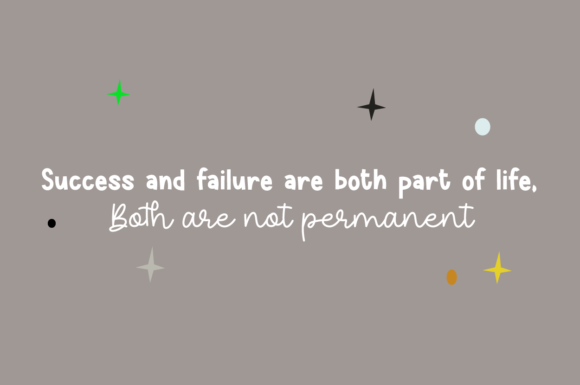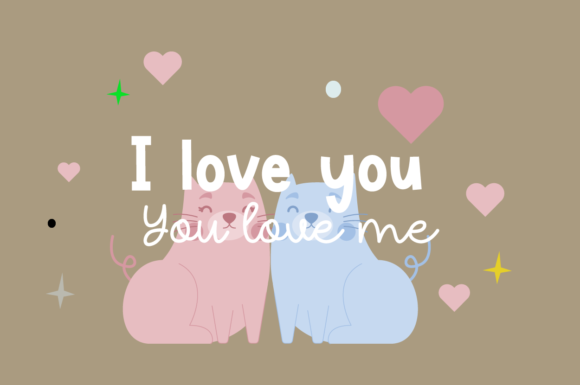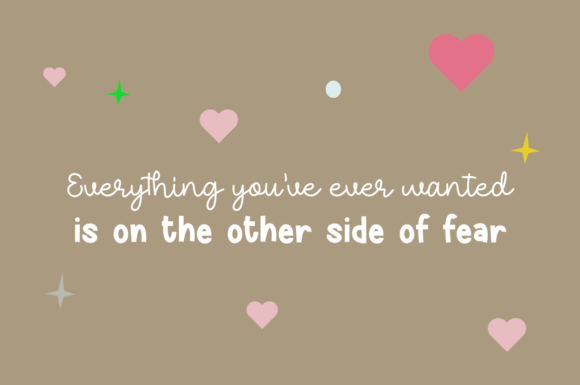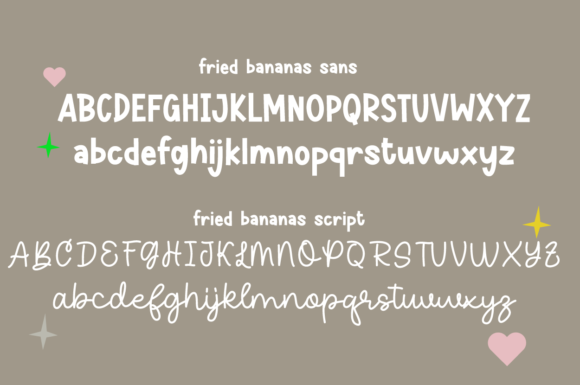
Introduction to Fried Bananas Font
Fried Bananas is a cute and friendly duo font (script and sans serif).
This font is PUA encoded which means you can access all glyphs and swashes with ease Add it confidently to your favorite creations and let yourself be amazed by the outcome generated.
Key Features of Fried Bananas Font